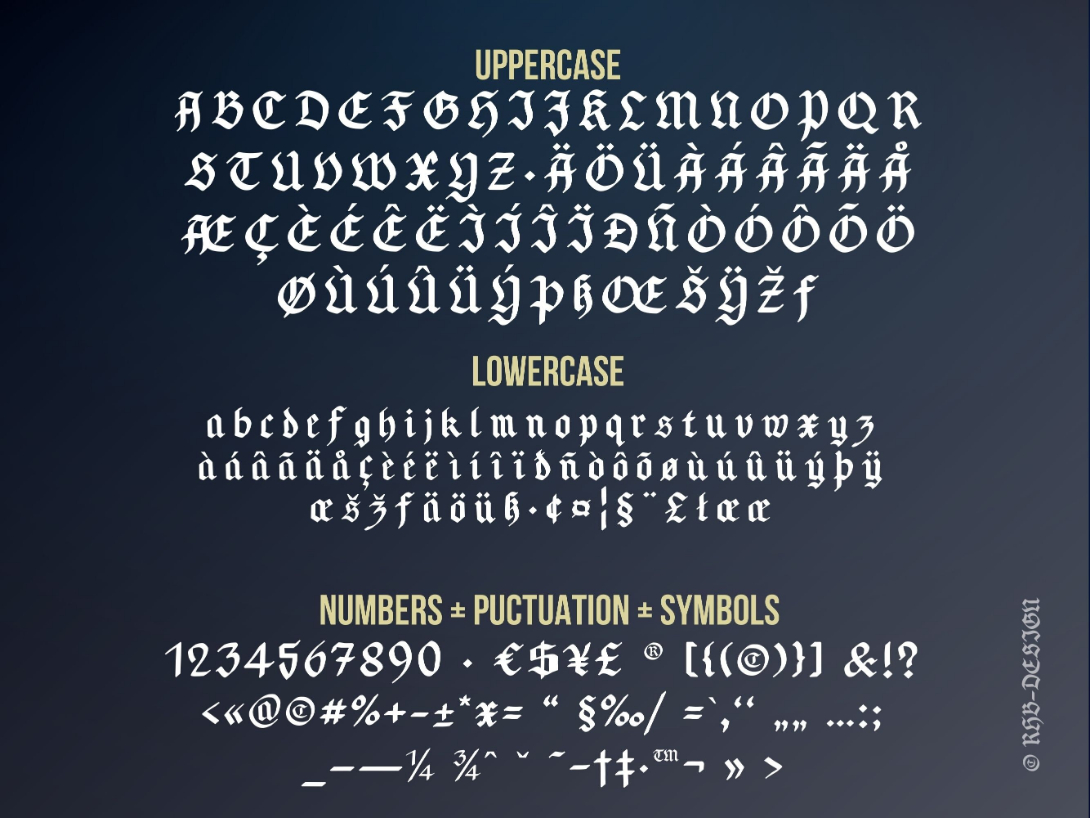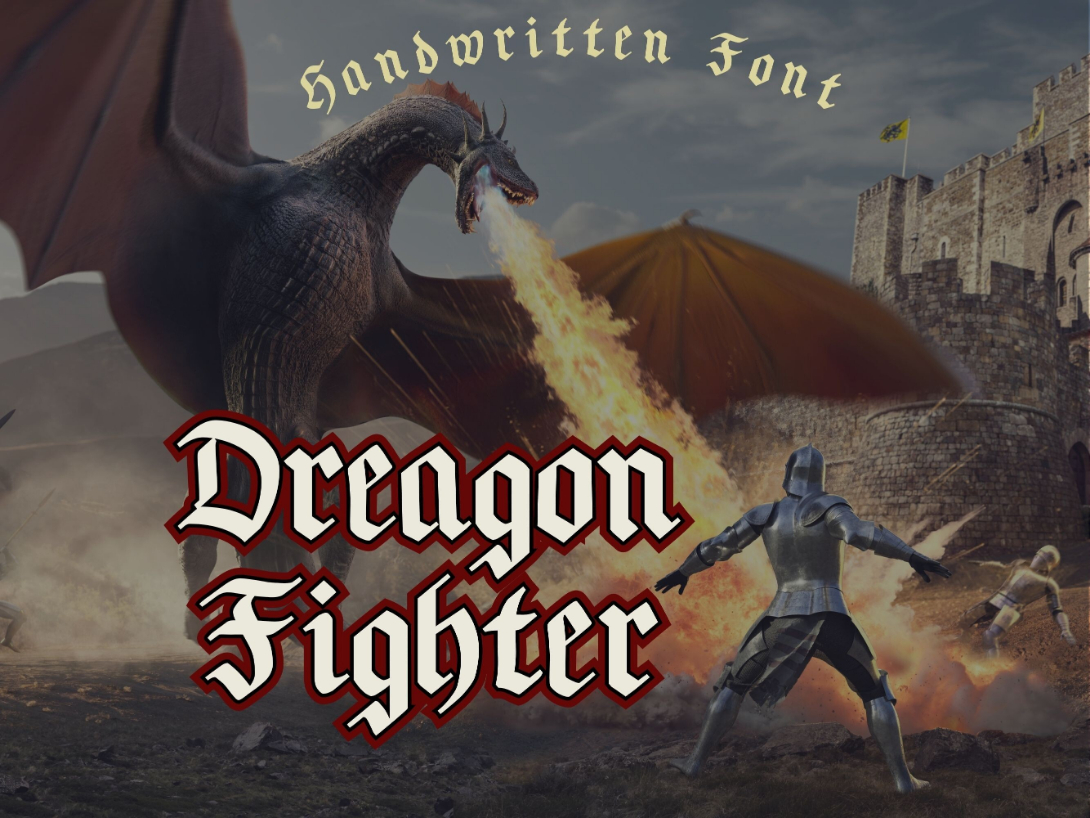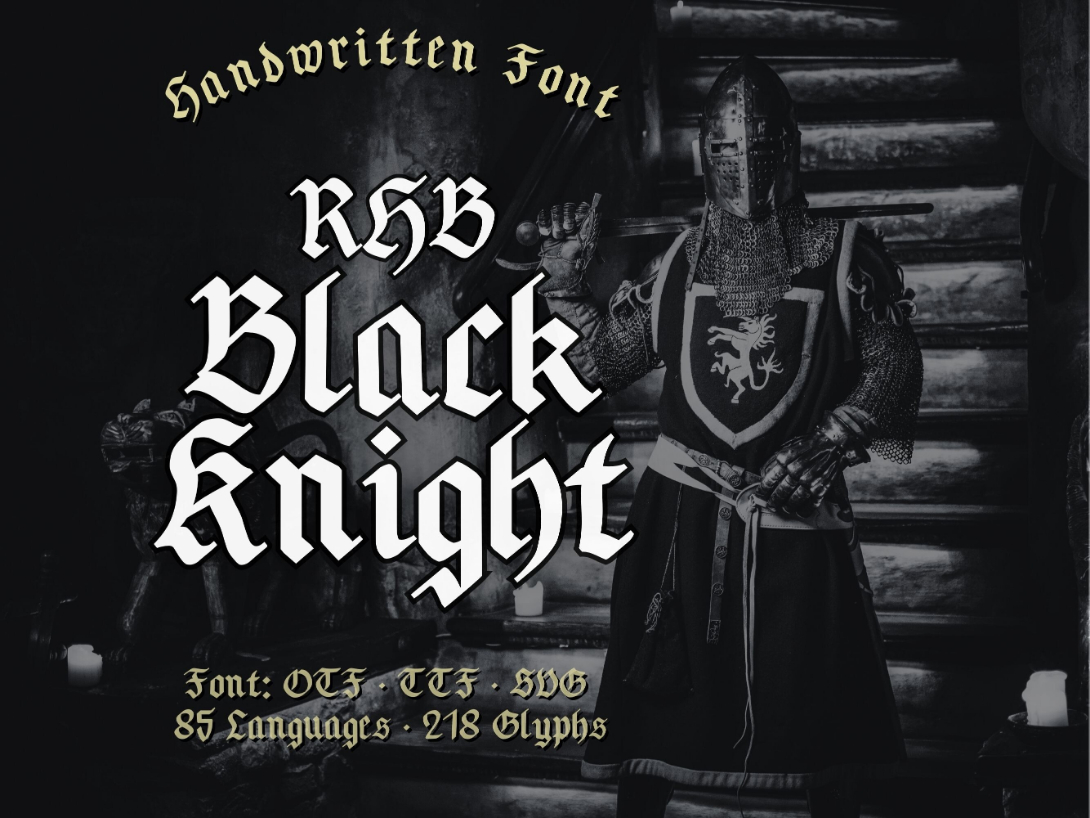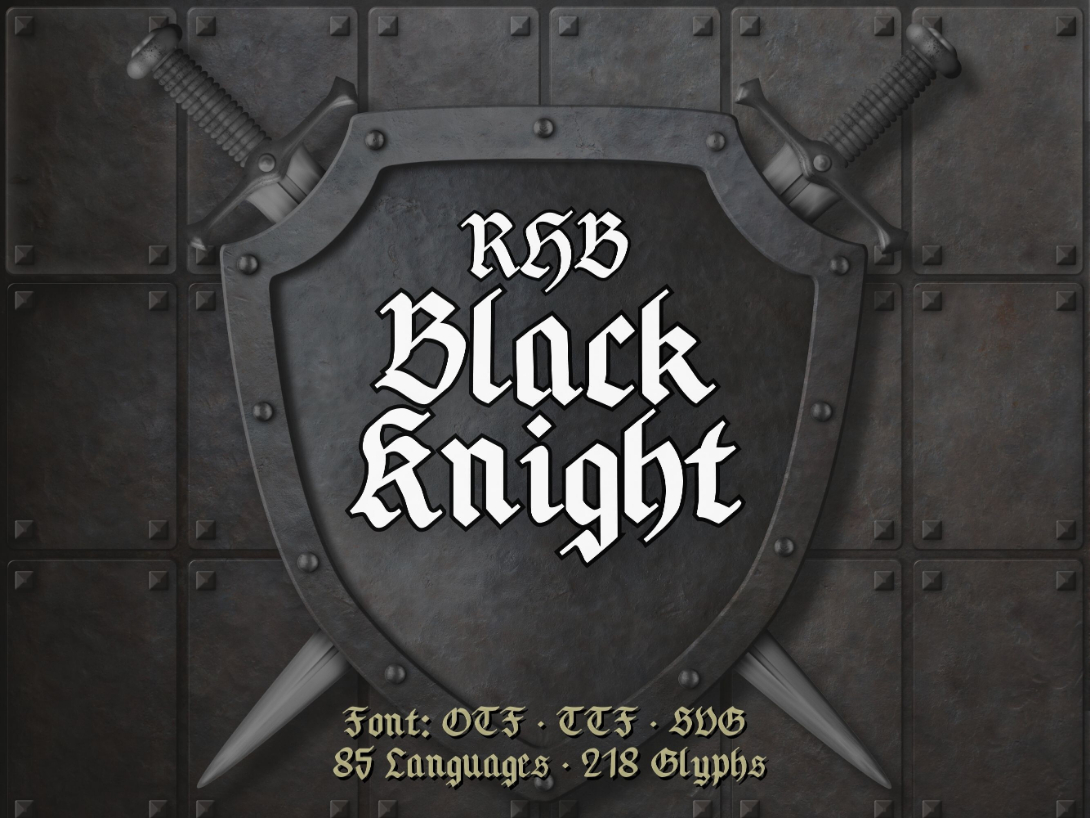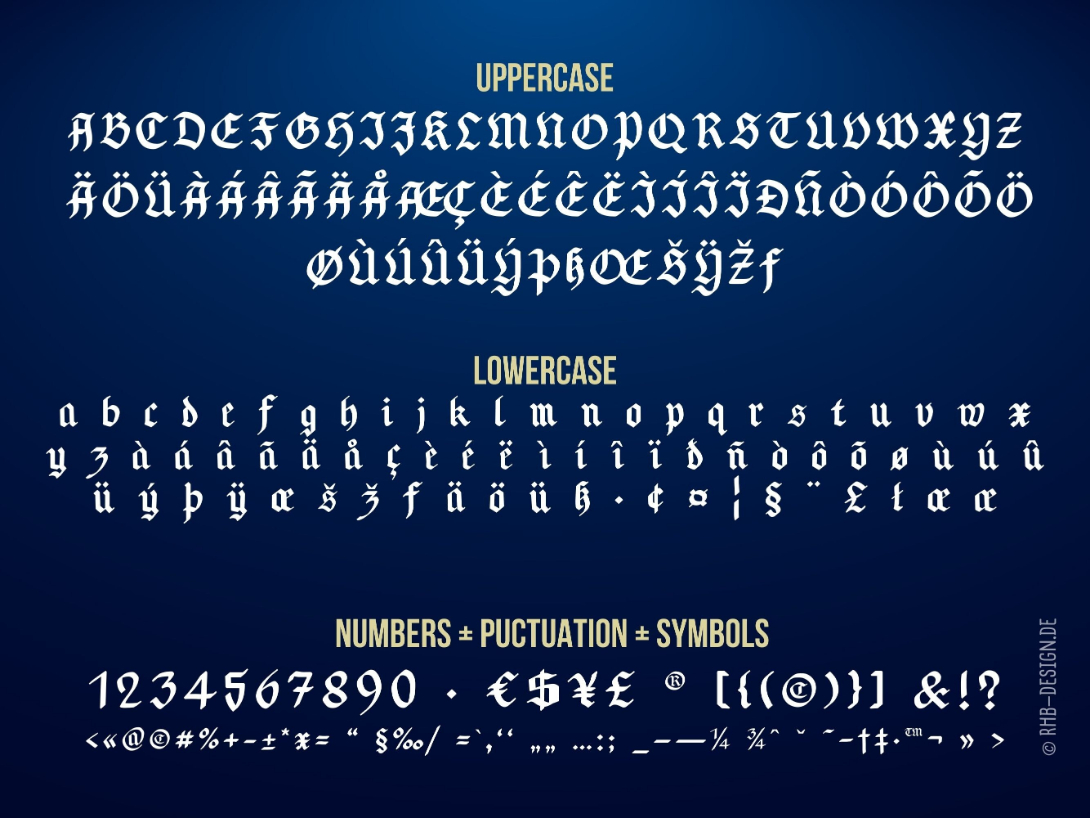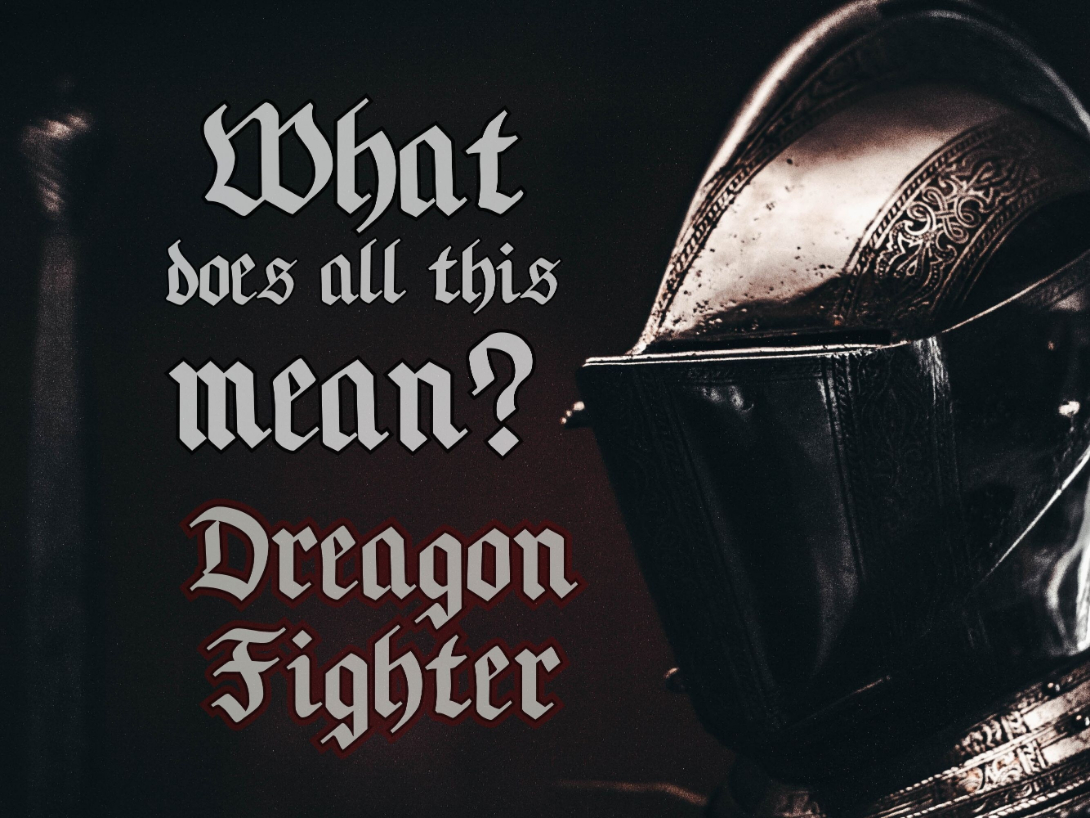
Blackknight Font
About Blackknight Font
Blackknight is a Gothic blackletter font that channels the timeless elegance of medieval script. Its intricate and sharp letterforms evoke a sense of historical richness and sophistication. Ideal for projects requiring a touch of Gothic allure, Blackknight adds a bold and distinguished aesthetic to your designs.